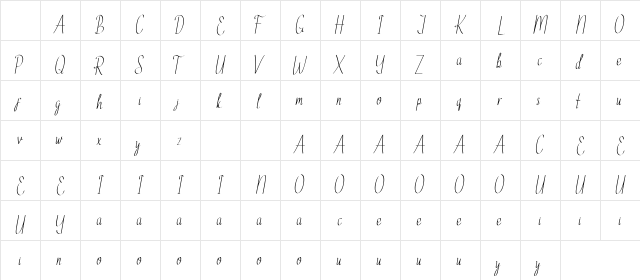
Complete Ethelyne Demo Italic glyph index. Displaying only characters natively supported by Ethelyne Demo Italic font.
Ethelyne Demo is a composed and adaptable typeface that performs quietly and consistently across a wide range of design contexts. The slanted form adds forward momentum and visual energy.